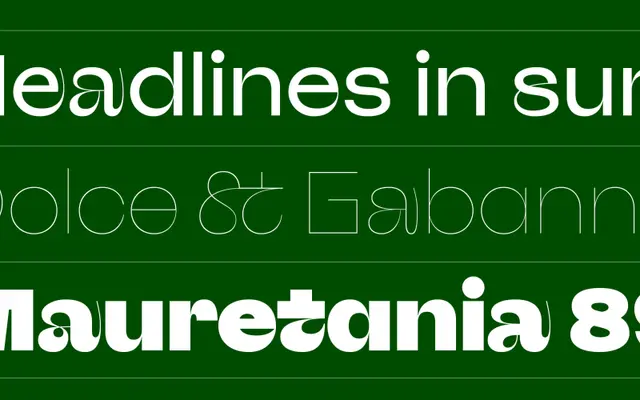
Afronaut
A seven-weight display sans by Mateusz Machalski, drawing on West African vernacular lettering and futurist space-travel aesthetics for its distinctive letterforms.
Inspired by Bartek Sabela's book on Zambia's space programme, this typeface blends vernacular lettering Machalski encountered in Guinea-Bissau, Gambia, Senegal and Mauritania with a futuristic, space-travel sensibility. Seven weights from Thin to Bold are complemented by a variable font, and many letters offer three alternate forms accessible via OpenType stylistic sets. Language support extends to Latin, Greek and Cyrillic, covering a broad range of African and European scripts.
A display sans with a distinctive character set drawing on vernacular African lettering, Arabic script influence and space-age futurist aesthetics, placing it firmly outside standard text classification and into expressive display territory.